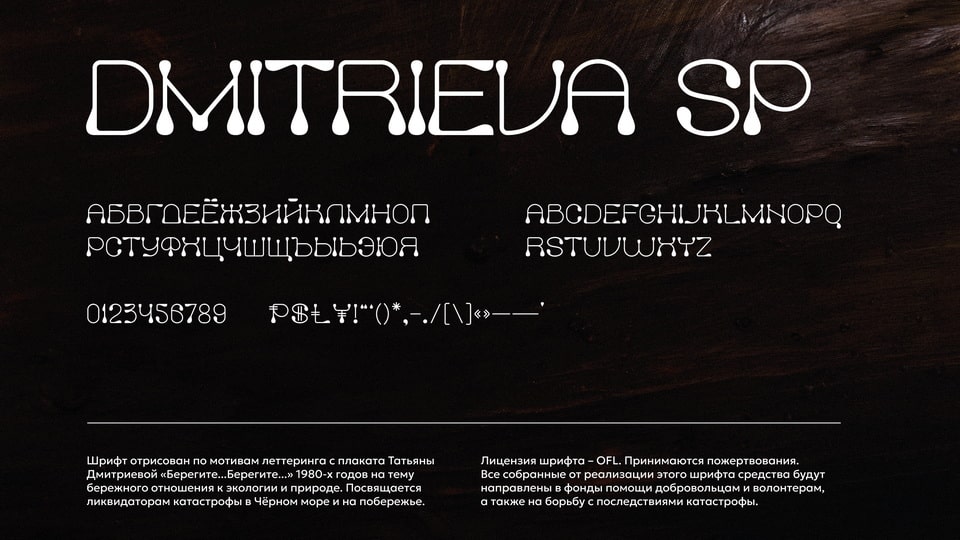
Download Dmitrieva SP font, a display typeface based on the lettering from Tatyana Dmitrieva’s poster “Take Care… Take Care…” from the 1980s on the theme of careful attitude to ecology and nature.